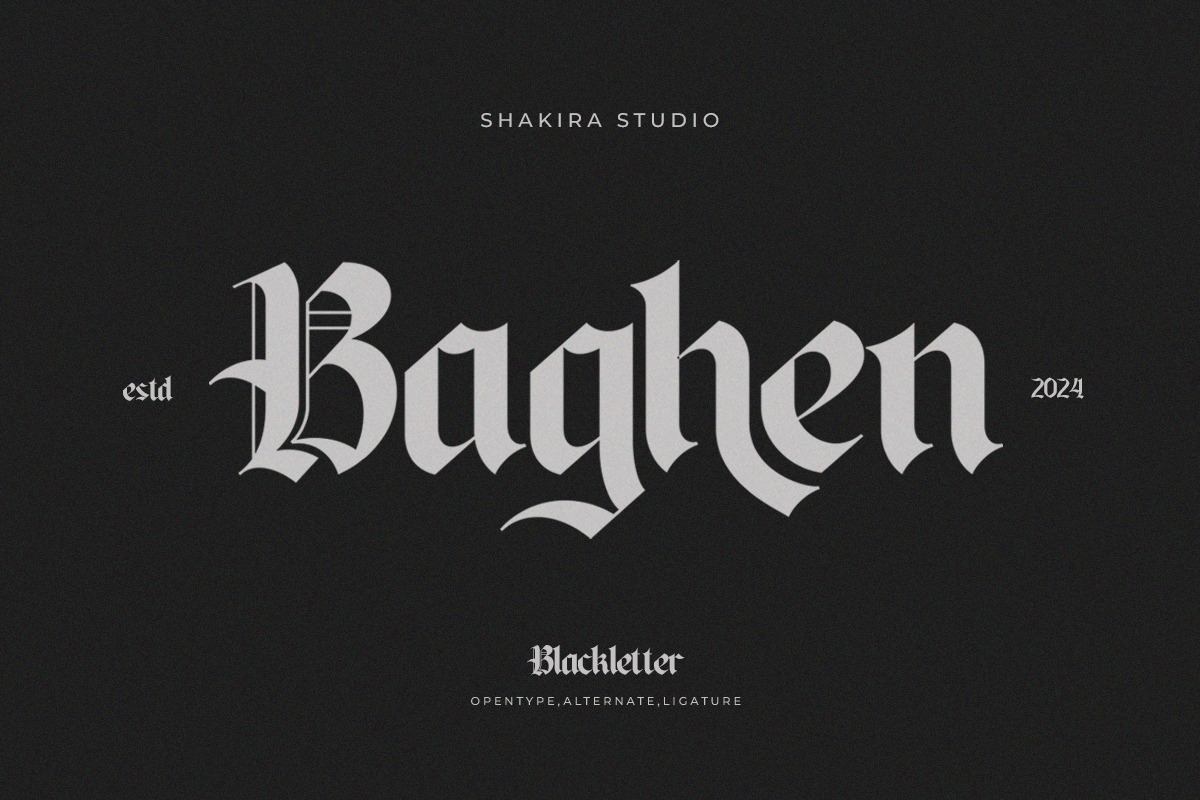
Baghen Blackletter Typeface Free Download is a bold and dramatic typeface that draws inspiration from gothic calligraphy and medieval script. With its sharp edges, intricate details, and strong presence, Baghen is ideal for tattoo designs, band logos, posters, merchandise, and branding that demands attitude and intensity.
Whether you're aiming for a dark vintage vibe or a hardcore metal look, Baghen delivers authenticity and edge in every letter. This blackletter font is made for designers who want to stand out with bold, heritage-inspired typography.